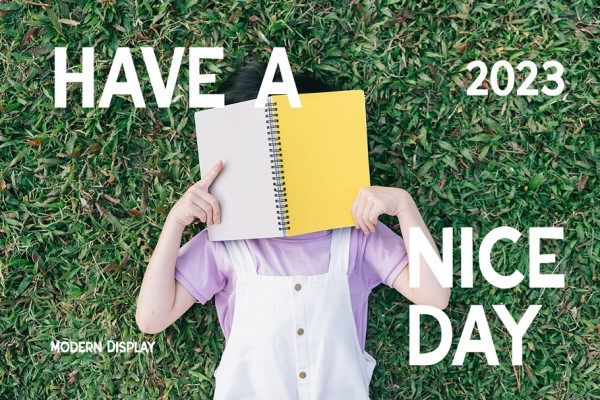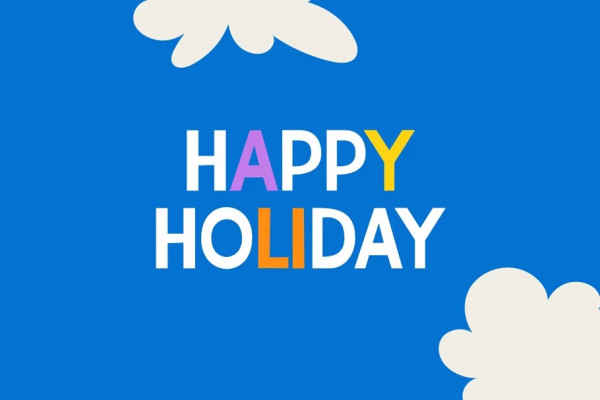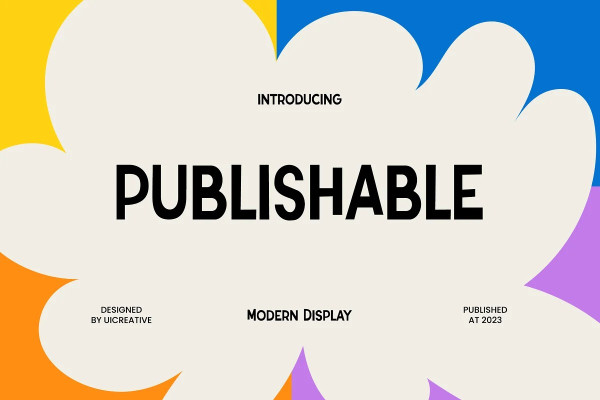
Publishable Font
Publishable Font – Modern Display Font. This font is ideally suited for a wide variety of projects, such as signature, stationery, logo, wedding, typography quotes, magazine or book covers, website headers, clothing, branding, packaging design, and more. Also, fashion-related branding or editorial design displays both masculine and feminine qualities.